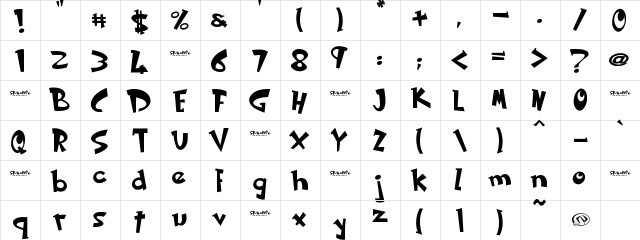
SP-rocket Regular
| Foundry | Chris Brown (visual design) |
| Designer | Chris Brown |
Design Context for SP-rocket Typeface
SP-rocket is a composed and adaptable typeface that performs quietly and consistently across a wide range of design contexts.